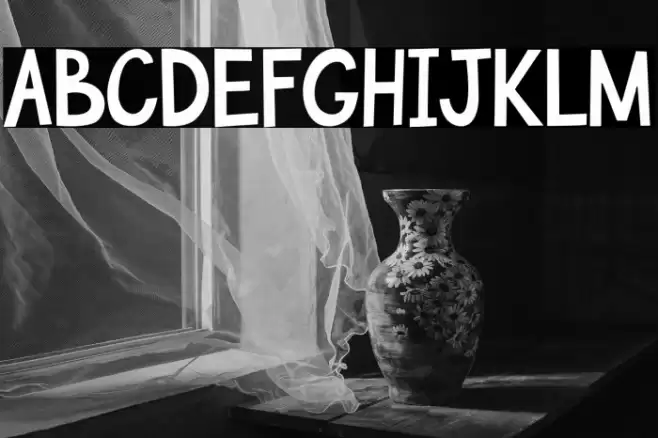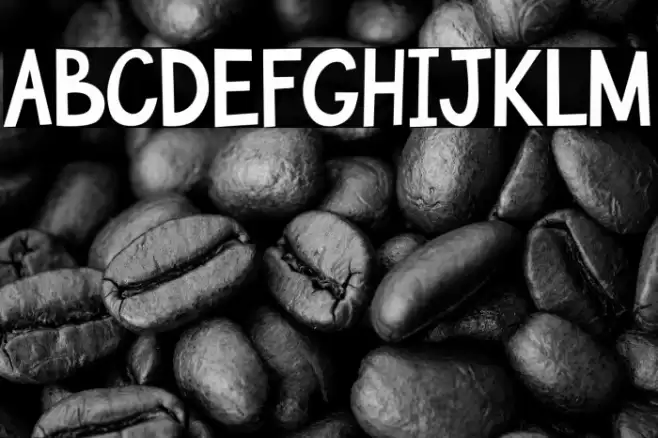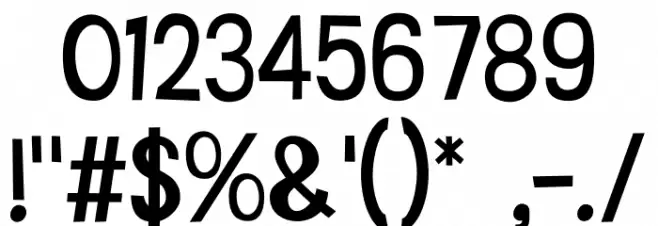
Winter Memo Font
Winter Memo Description
This playful and whimsical font features a hand-drawn style with a casual, friendly appearance. The letters are slightly irregular, giving it a charming, informal feel. The uppercase and lowercase characters maintain a consistent style, with rounded edges and a slightly uneven baseline that adds to its quirky personality. The numerals and special characters follow the same playful design, making it versatile for various creative projects. The font's overall look is approachable and fun, perfect for adding a touch of personality to any design.
A playful, hand-drawn font with a whimsical and friendly style from Cartoon fonts.
- Proposed Projects: Ideal for children's books, greeting cards, playful branding, and creative social media graphics.
- Overall Style: Playful
- Use Case: Headlines, Logos, Informal Text